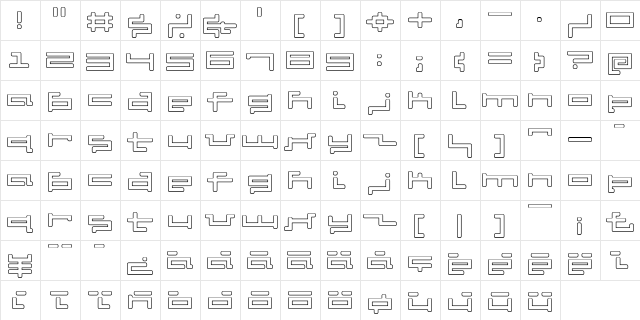
V5 Cuadra2 Outline
Design Context for V5 Cuadra2 Typeface
V5 Cuadra2 brings ornamental detail and strong personality to headlines and identities, where visual impact matters more than quiet functionality.
Font Pairing: Pair with a clean neutral sans-serif for body copy to let V5 Cuadra2's character lead without overwhelming the composition.
Pro Tip: Treat V5 Cuadra2 as the centrepiece of your typographic hierarchy. One strong heading set in a decorative face can carry an entire layout.